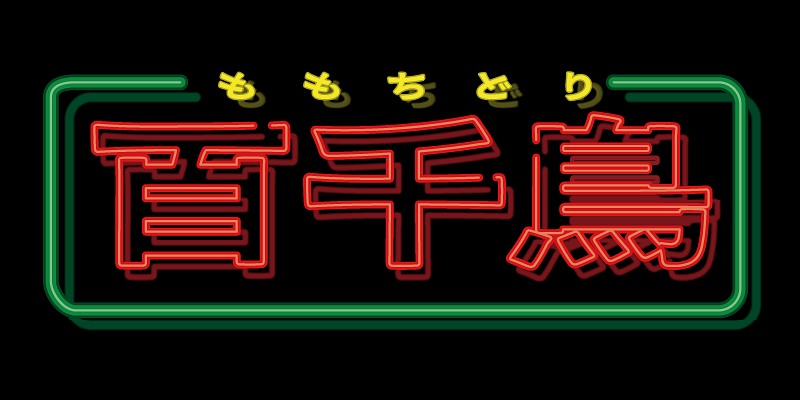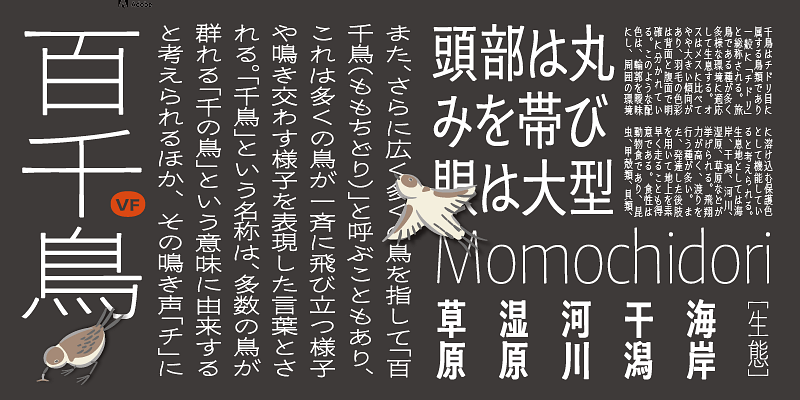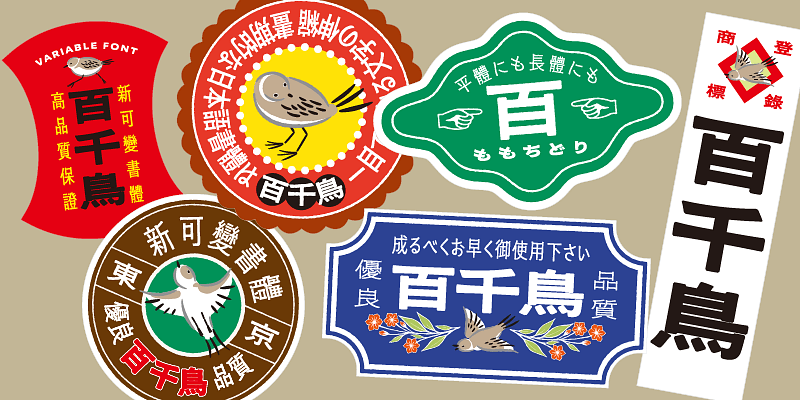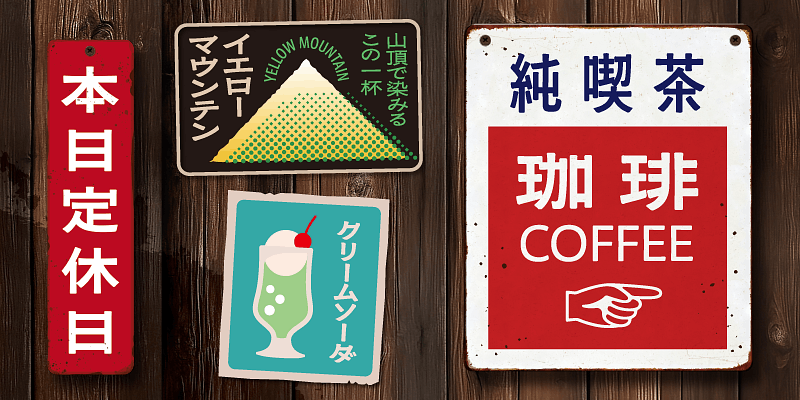
Momochidori is an Adobe Originals typeface with humorous and retro-looking letter forms designed by Ryoko Nishizuka, Adobeʼs Principal Designer. The three aspect ratios: Condensed, square, and Wide, each with five stroke weight variations, offer groundbreaking support for both horizontal and vertical writing modes. This font family does not contain Variable Fonts, but instead has 15 separate variations. (The Momochidori variable font is also available, from which you can select font instances from continuous ranges of stroke weight and aspect ratio.).